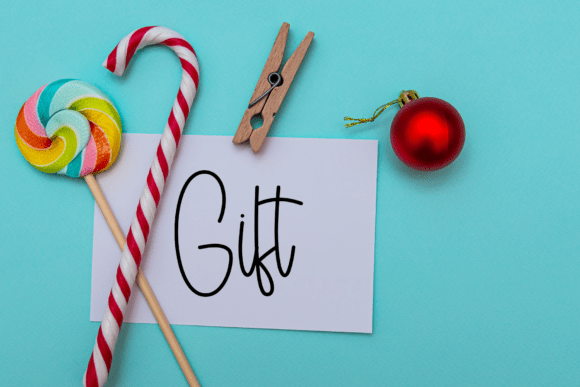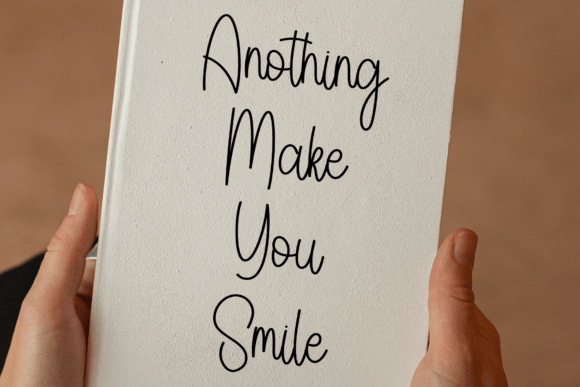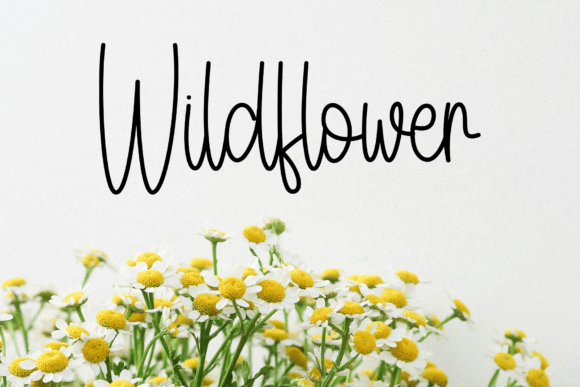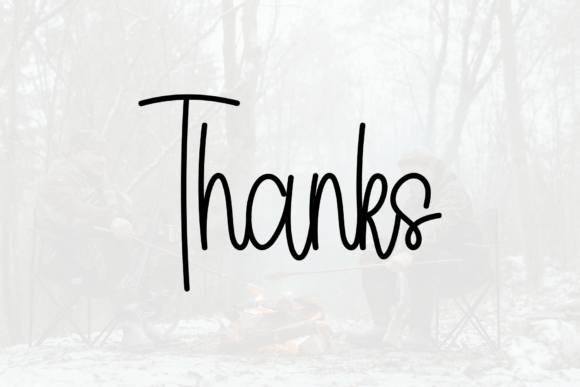
Discover the Freedom of the Great Outdoors with Camping Mountain Font
I’ll never forget the design project that led me to discover the Camping Mountain font. I was working on a branding campaign for an outdoor gear company, and I was struggling to find a font that captured the essence of adventure and freedom. The client wanted something that would make their audience feel like they were standing on the edge of a mountain, with the wind in their hair and the sun on their face. I tried font after font, but nothing seemed quite right – until I stumbled upon Camping Mountain.
A Personal Connection to Nature
The Camping Mountain font is more than just a typeface – it’s an experience. It’s a journey through the wilderness, with all its twists and turns. The long, sweeping ascenders and delicate, hand-drawn texture make it feel like you’re hiking through the mountains, with every step revealing a new breathtaking view. This font is the antithesis of rigid, corporate fonts; it’s a “bouncy” and slightly irregular rhythm that mimics the peaks and valleys of a hiking trail.
What I Love About Camping Mountain Font
- ✨ Organic feel: The font has a natural, earthy vibe that’s perfect for outdoor-inspired designs.
- ✅ Highly legible: Despite its fluid, script-like quality, Camping Mountain is surprisingly easy to read, even at smaller sizes.
- 💫 Unique character: The font’s irregular rhythm and hand-drawn texture give it a distinctive personality that’s hard to find in more traditional typefaces.
While Camping Mountain is an amazing font, it’s not without its quirks. Here are a few things to keep in mind:
- 🤔 Limited use in formal designs: The font’s playful, organic feel may not be suitable for more formal or corporate designs.
- ⚠️ May not work well in small sizes: While the font is generally legible, its delicate texture and hand-drawn quality may get lost at very small sizes.
The Story Behind Camping Mountain Font
Camping Mountain font was designed by a team of outdoor enthusiasts who wanted to capture the essence of nature in a typeface. They spent countless hours hiking, camping, and exploring the wilderness, and then poured their experiences into the font. The result is a typeface that’s both authentic and adventurous, perfect for anyone who loves the great outdoors.
- Q: What kind of designs is Camping Mountain font best suited for?
- A: Camping Mountain font is perfect for outdoor-inspired designs, such as branding for outdoor gear companies, travel blog headers, and rustic wedding invitations.
- Q: Is Camping Mountain font suitable for body text?
- A: While Camping Mountain font is highly legible, it’s best suited for headlines and titles. For body text, you may want to choose a more traditional serif or sans-serif font.